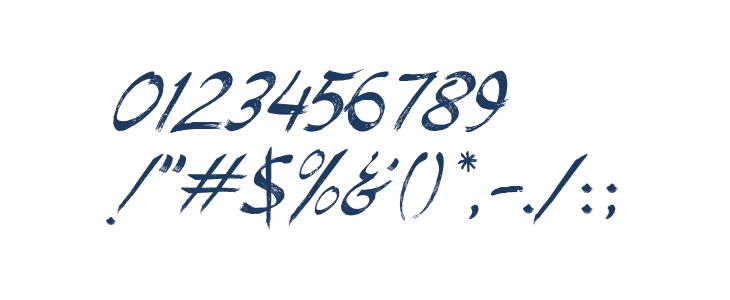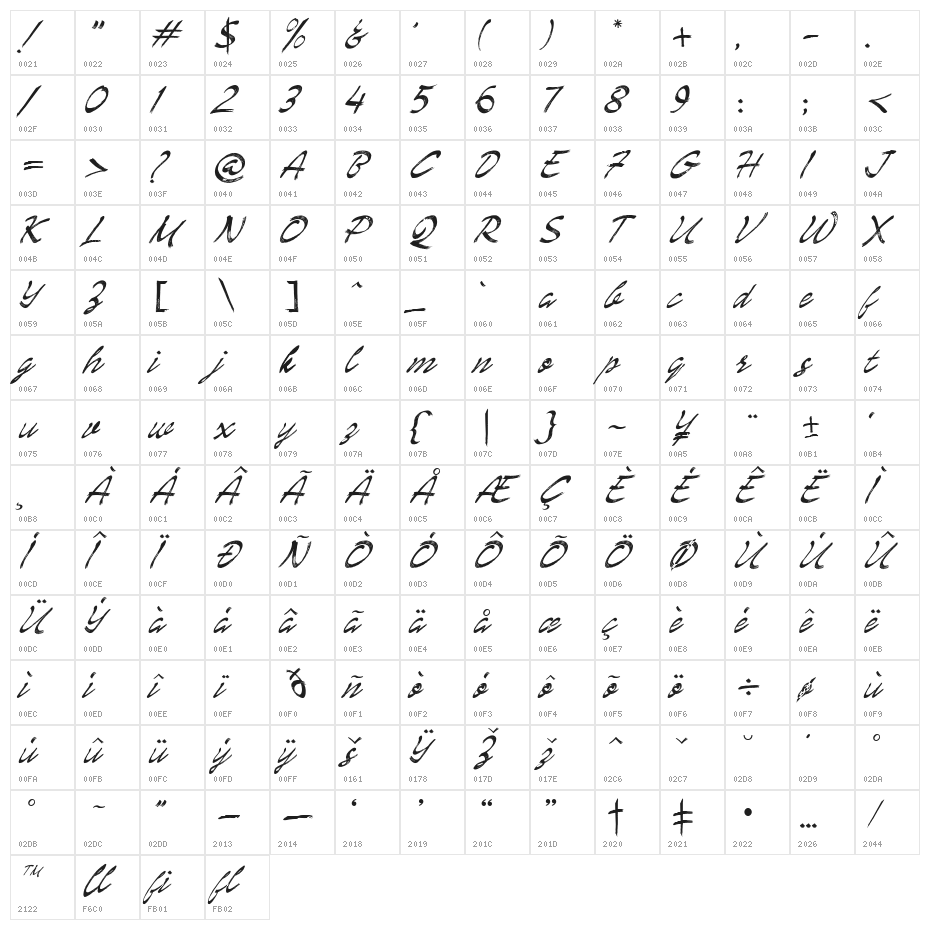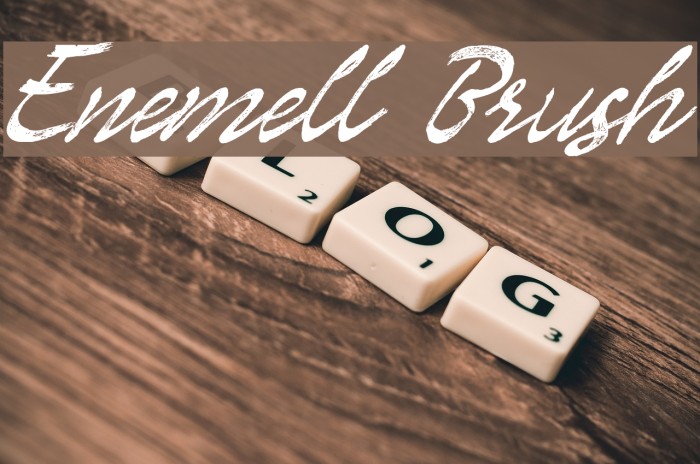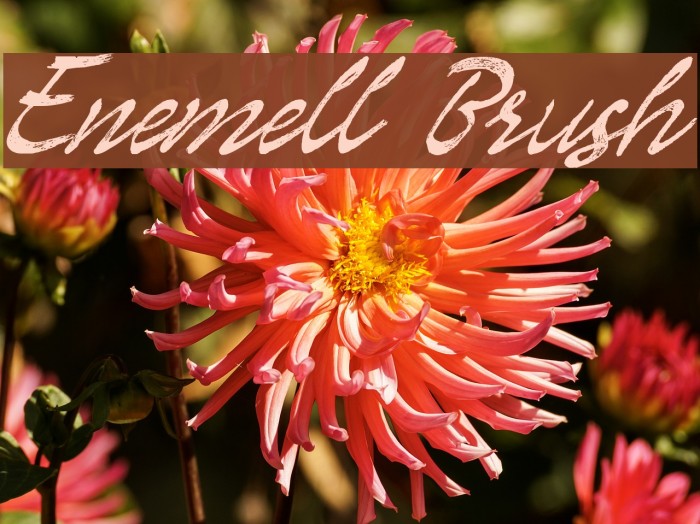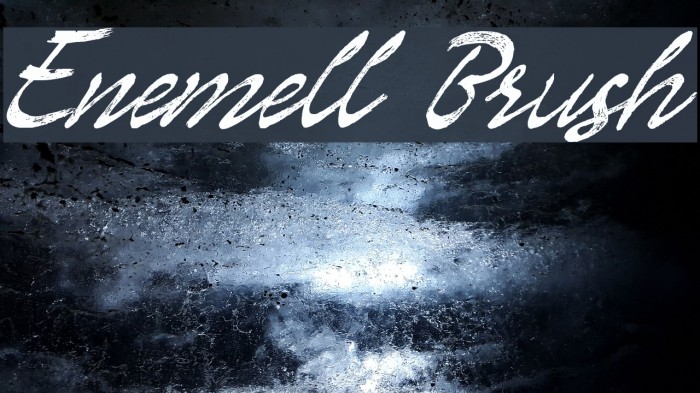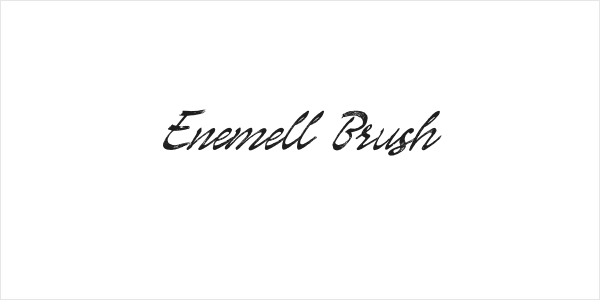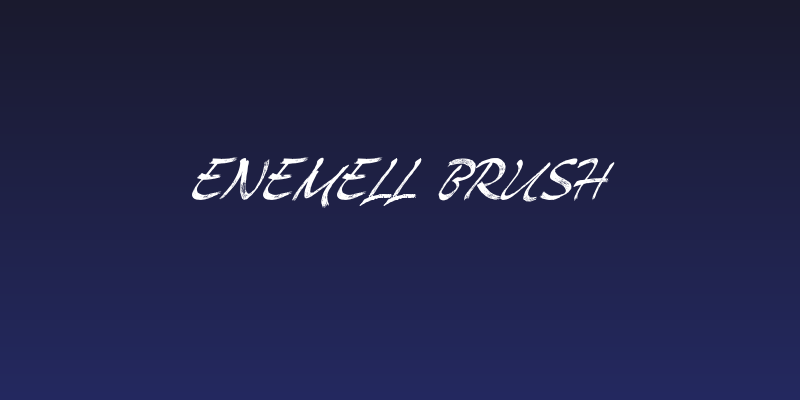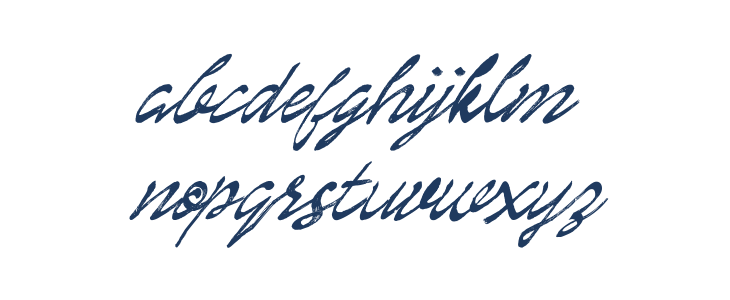
Enemell Brush Font
Enemell Brush Description
This font features a dynamic and expressive brush style, characterized by its fluid and sweeping strokes. The letters exhibit a natural, hand-painted appearance, with varying thickness that adds a sense of movement and energy. The uppercase and lowercase letters maintain a consistent style, enhancing readability while preserving the artistic flair. The numerals and special characters are crafted with the same attention to detail, ensuring a cohesive look across all text elements. The overall design is bold and impactful, making it ideal for creative and eye-catching applications.
| Proposed Projects | Ideal for branding, posters, invitations, and artistic projects that require a bold, creative touch. |